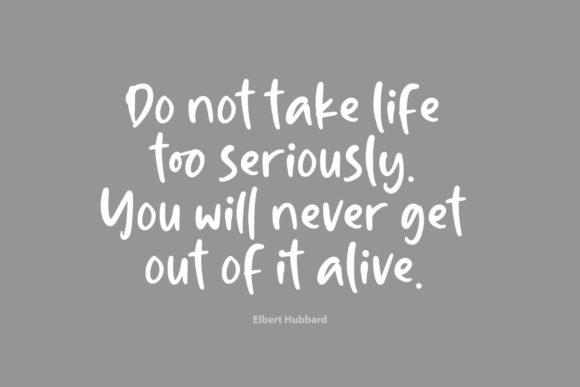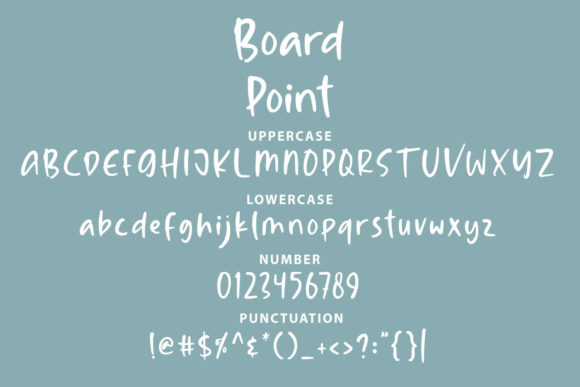
Introducing Board Points Font: The Ultimate Handwritten Font for Creative Standouts
In the world of typography, fonts play a crucial role in bringing creative ideas to life. A well-chosen font can elevate a design, make it more engaging, and leave a lasting impression on the audience. If you’re a designer, crafter, or DIY enthusiast looking for a font that embodies fun, quirkiness, and authenticity, look no further than Board Points Font. This enchanting handwritten font is designed to turn any creative idea into a true standout, and we’re excited to dive into its features and benefits.
The Charm of Board Points Font
Board Points Font is a unique and captivating handwritten font that exudes a sense of playfulness and whimsy. Its distinctive characters are carefully crafted to add a touch of personality to any design project. Whether you’re working on a DIY craft, a branding project, or a digital design, Board Points Font is the perfect choice for those who want to add a dash of fun and creativity to their work.
What Makes Board Points Font Special?
- Handwritten with love: Board Points Font is a genuine handwritten font, created with love and care to ensure that each character is unique and full of personality.
- Quirky and authentic: This font’s quirky and authentic style makes it perfect for designs that require a touch of whimsy and fun.
- Highly versatile: Board Points Font can be used for a wide range of design projects, from digital designs to print materials, and even DIY crafts.
- Easy to read: Despite its playful style, Board Points Font is highly legible, making it perfect for designs that require a clear and readable text.
Use Cases for Board Points Font
Board Points Font is an incredibly versatile font that can be used for a wide range of design projects. Here are some use cases to get you started:
- DIY crafts: Add a personal touch to your DIY crafts, such as handmade cards, gift tags, and scrapbooking projects.
- Branding projects: Use Board Points Font to create unique and memorable brand identities, including logos, business cards, and letterheads.
- Digital designs: Add a touch of whimsy to your digital designs, including social media graphics, blog posts, and website headers.
- Print materials: Use Board Points Font for print materials, such as flyers, brochures, and posters.
Tips for Using Board Points Font
To get the most out of Board Points Font, here are some tips to keep in mind:
- Experiment with colors: Board Points Font looks great in a variety of colors, so don’t be afraid to experiment and find the perfect hue for your design.
- Mix and match: Combine Board Points Font with other fonts to create a unique and visually appealing design.
- Play with sizes: Use Board Points Font in different sizes to create visual hierarchy and add emphasis to your design.
In conclusion, Board Points Font is a unique and captivating handwritten font that embodies fun, quirkiness, and authenticity. Its distinctive characters and highly versatile style make it perfect for a wide range of design projects, from DIY crafts to digital designs. With its ease of use and flexibility, Board Points Font is sure to become a favorite among designers, crafters, and DIY enthusiasts. So why wait? Give Board Points Font a try today and turn your creative ideas into true standouts!